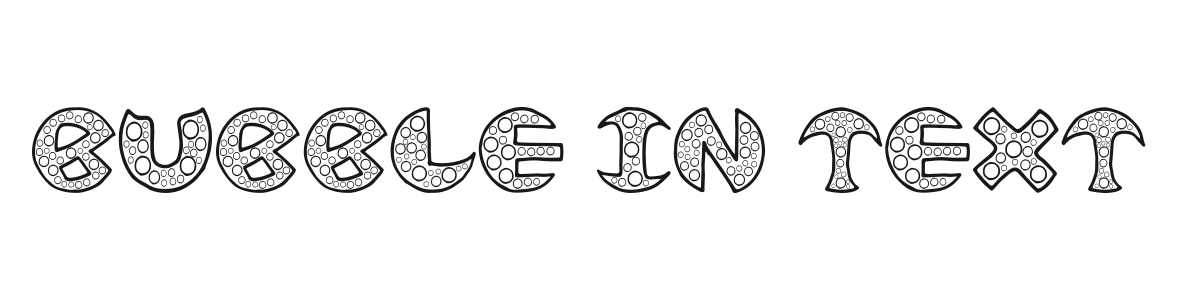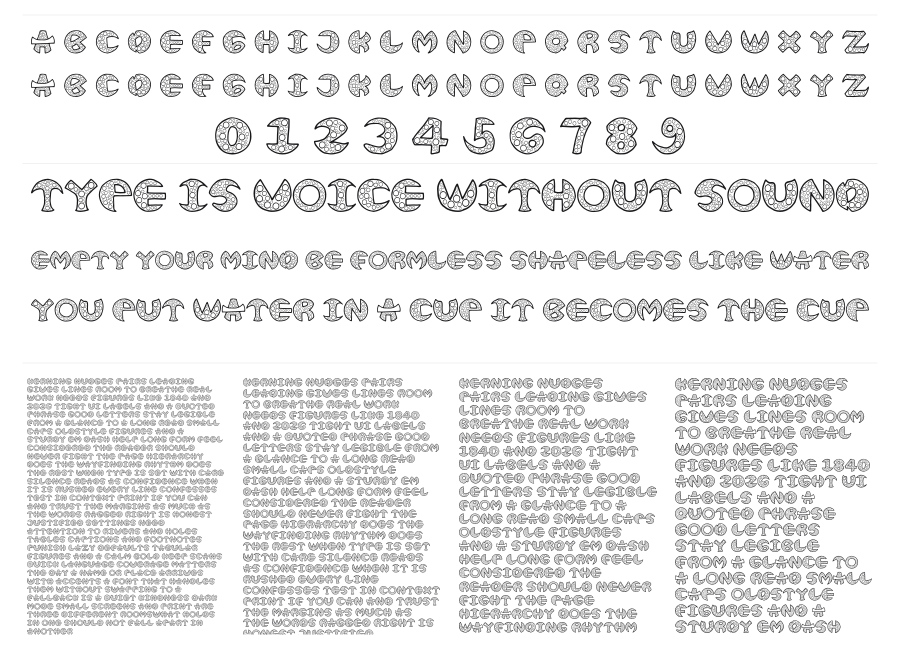
Bubble In Text
Bubble In Text is a bold novelty display font where every character is packed with a pattern of circles, making the letters look like clusters of soap bubbles or foam. The thick outlines and fully rounded shapes give it a cartoonish, tactile quality that reads instantly as fun. Great for children's content, event posters, and any project that needs high-energy personality.